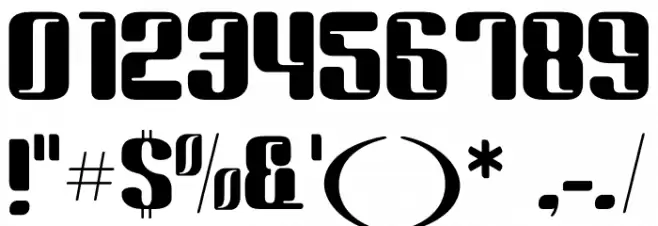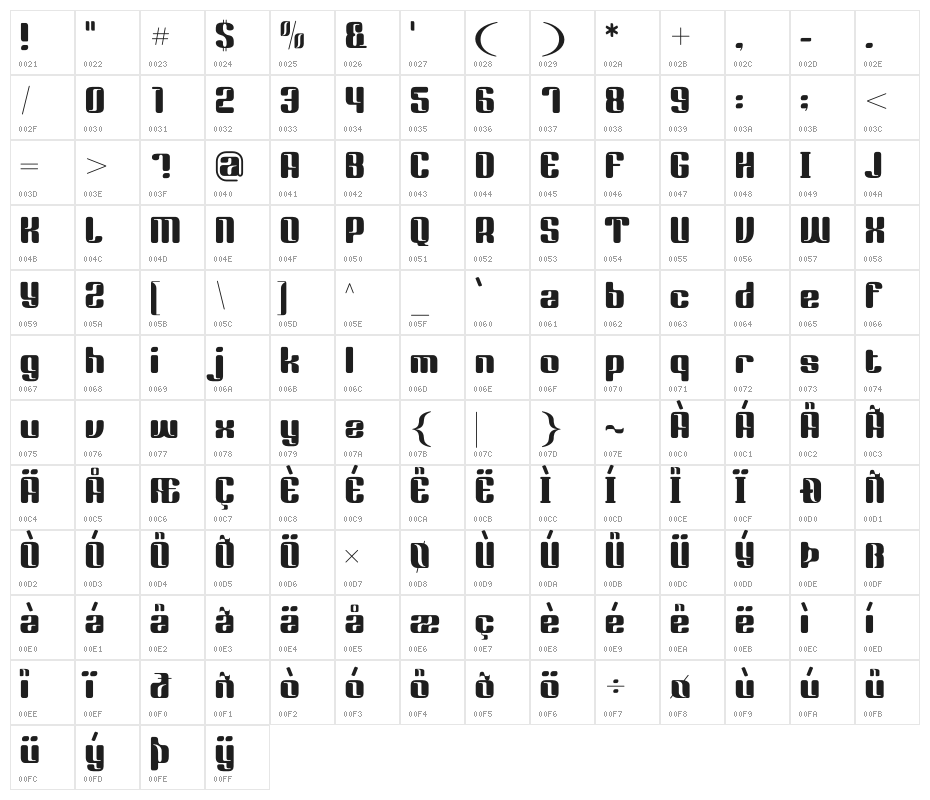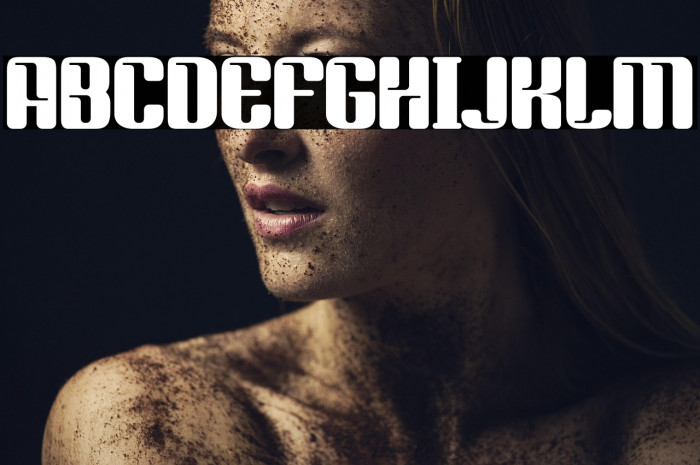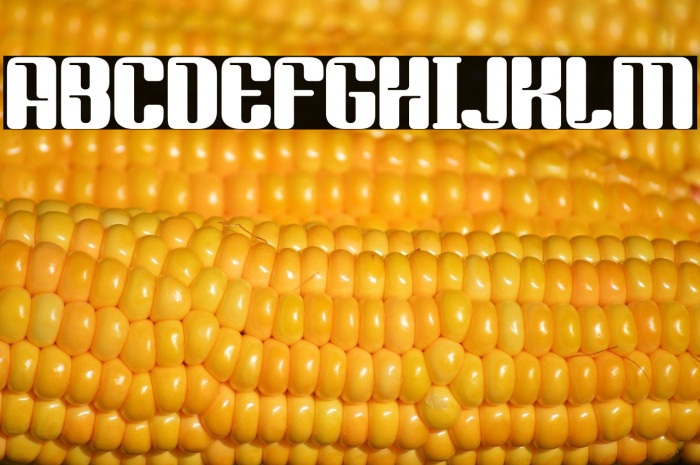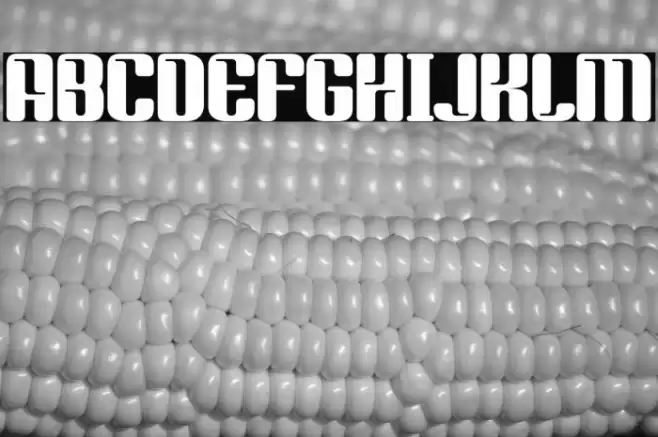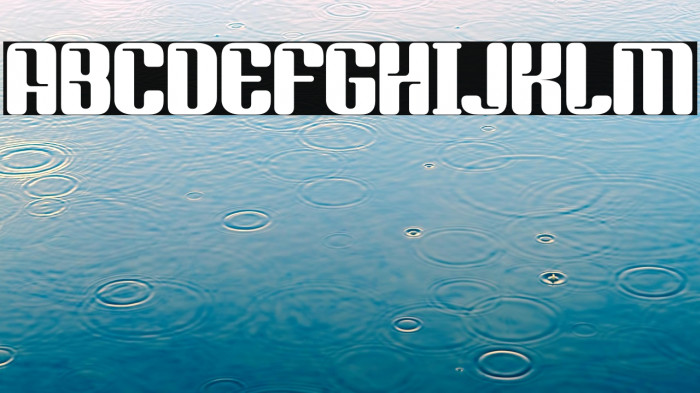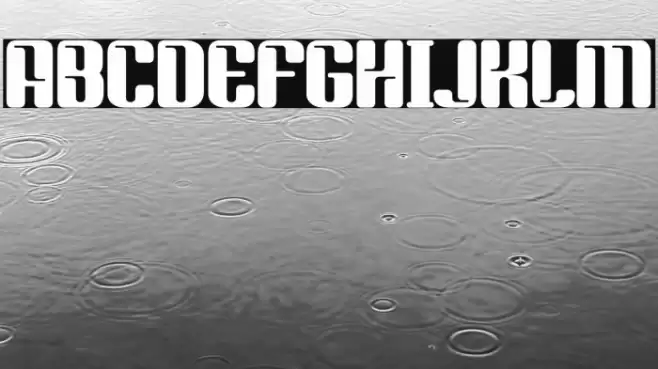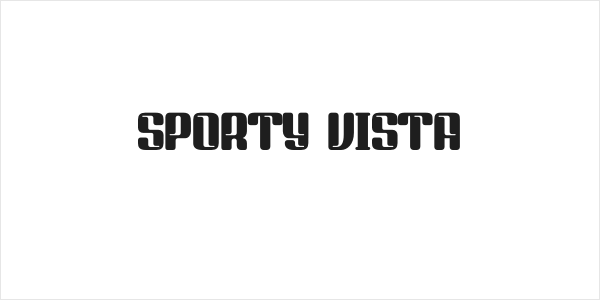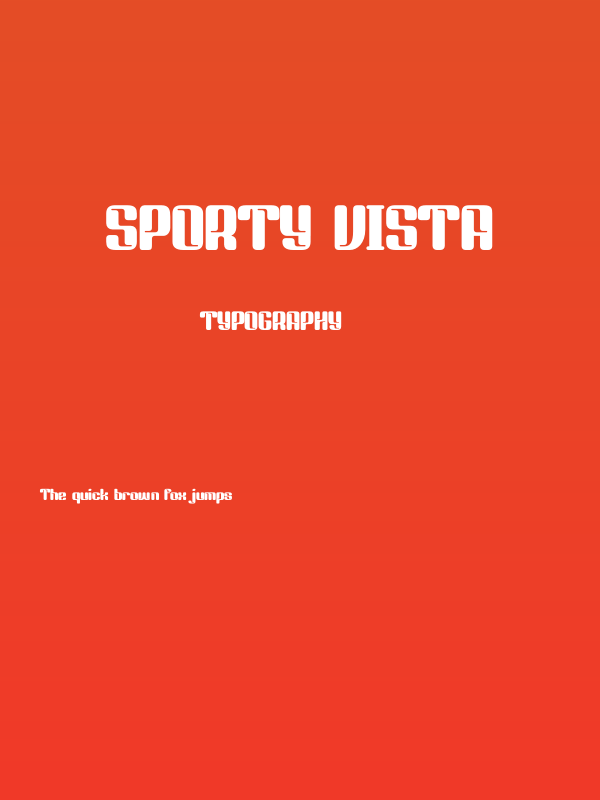
SPORTY VISTA Font
SPORTY VISTA Description
This font features a bold, modern design with a sporty and dynamic appearance. The characters are wide and have a strong presence, making them ideal for attention-grabbing headlines or branding. The uppercase and lowercase letters share a consistent style, with rounded edges and a slightly condensed form that adds to the energetic feel. The numerals and special characters maintain this cohesive look, ensuring versatility across various applications. The font's unique style is characterized by its thick strokes and minimal contrast, giving it a robust and impactful aesthetic.
| Proposed Projects | This font is perfect for sports branding, event posters, merchandise design, and dynamic advertising campaigns. |